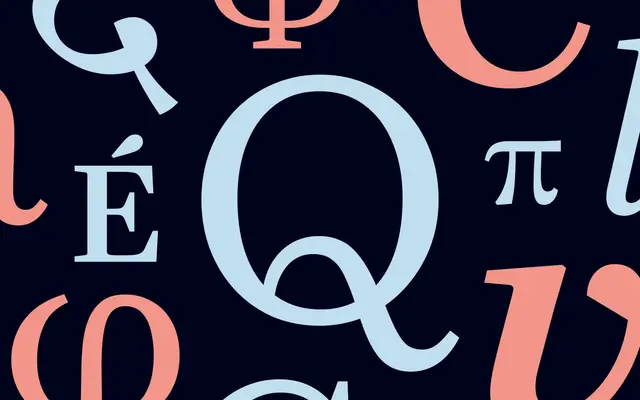
Bressay
Dalton Maag · Stuart Brown, Alex Blattmann, Matt Burvill, Jonny Pinhorn · 2015
An award-winning Scotch Roman serif with two display styles and four text styles, covering Arabic, Cyrillic, Devanagari, Greek and Latin.
Dalton Maag's Bressay is a Scotch Roman serif by Stuart Brown, Alex Blattmann, Matt Burvill and Jonny Pinhorn, designed and developed 2015 to 2023. It carries a TDC Typeface Design Award and ships as two display styles and four text styles with matching italics. Coverage spans Arabic, Cyrillic, Devanagari, Greek and Latin across more than 940 languages, with OpenType features including small caps, historical long s and Arabic curved quotes.
Dalton Maag describes Bressay as an award-winning Scotch Roman serif typeface, with a compact family of two display styles and four text styles ideal for editorial use.